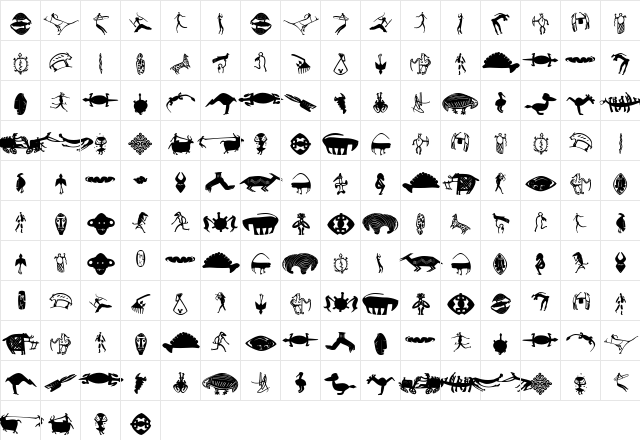
CavePeople-Painting Regular
Design Context for CavePeople-Painting Typeface
CavePeople-Painting is a composed and adaptable typeface that performs quietly and consistently across a wide range of design contexts.